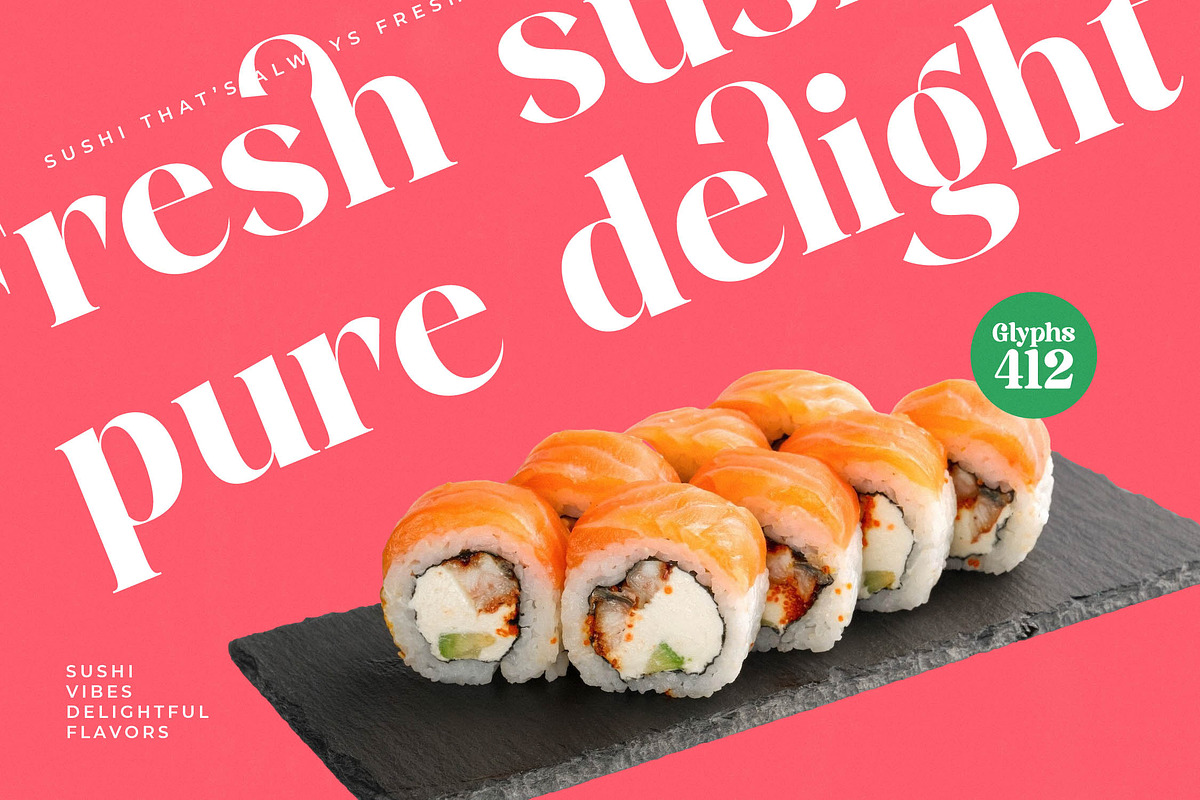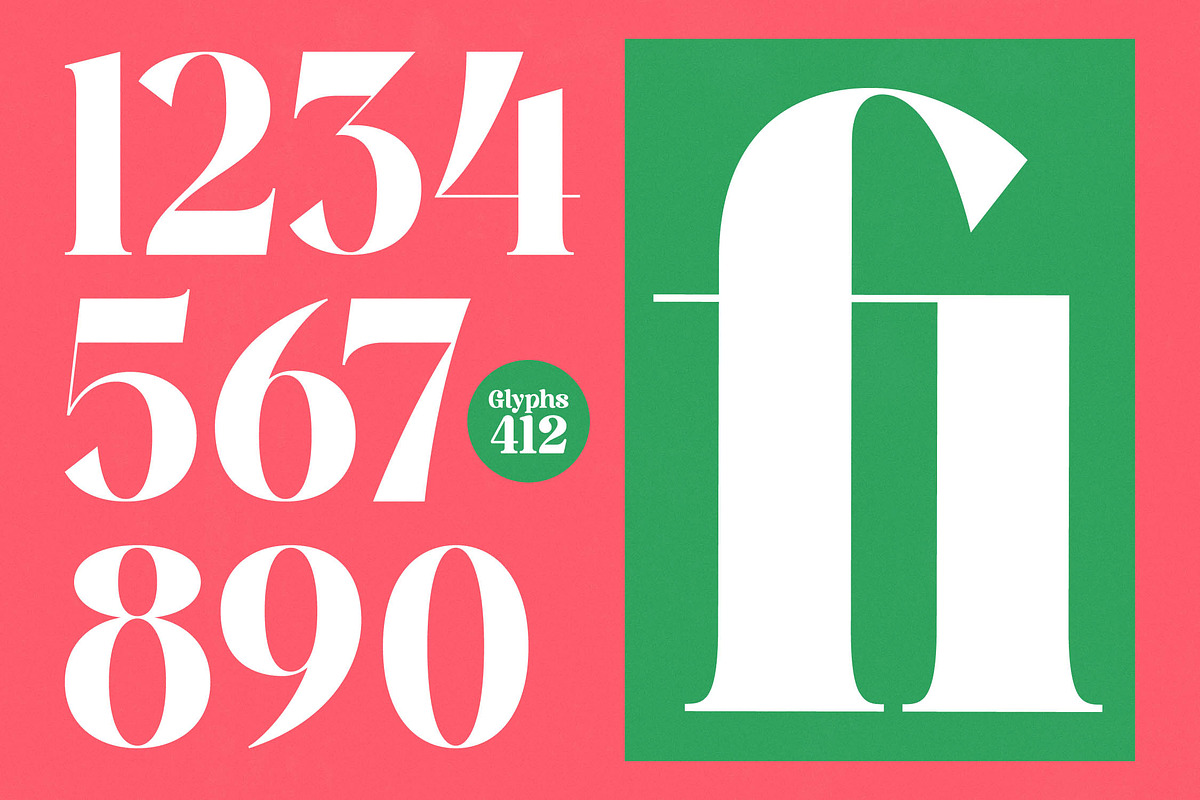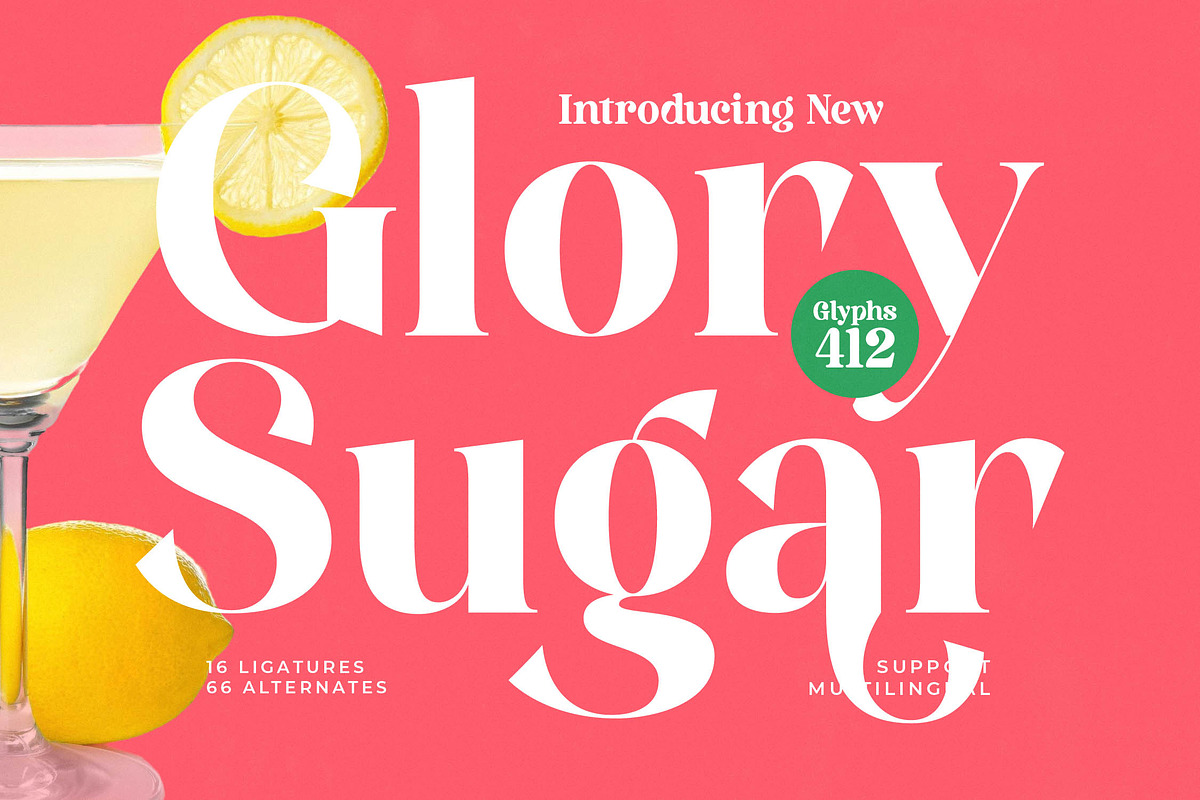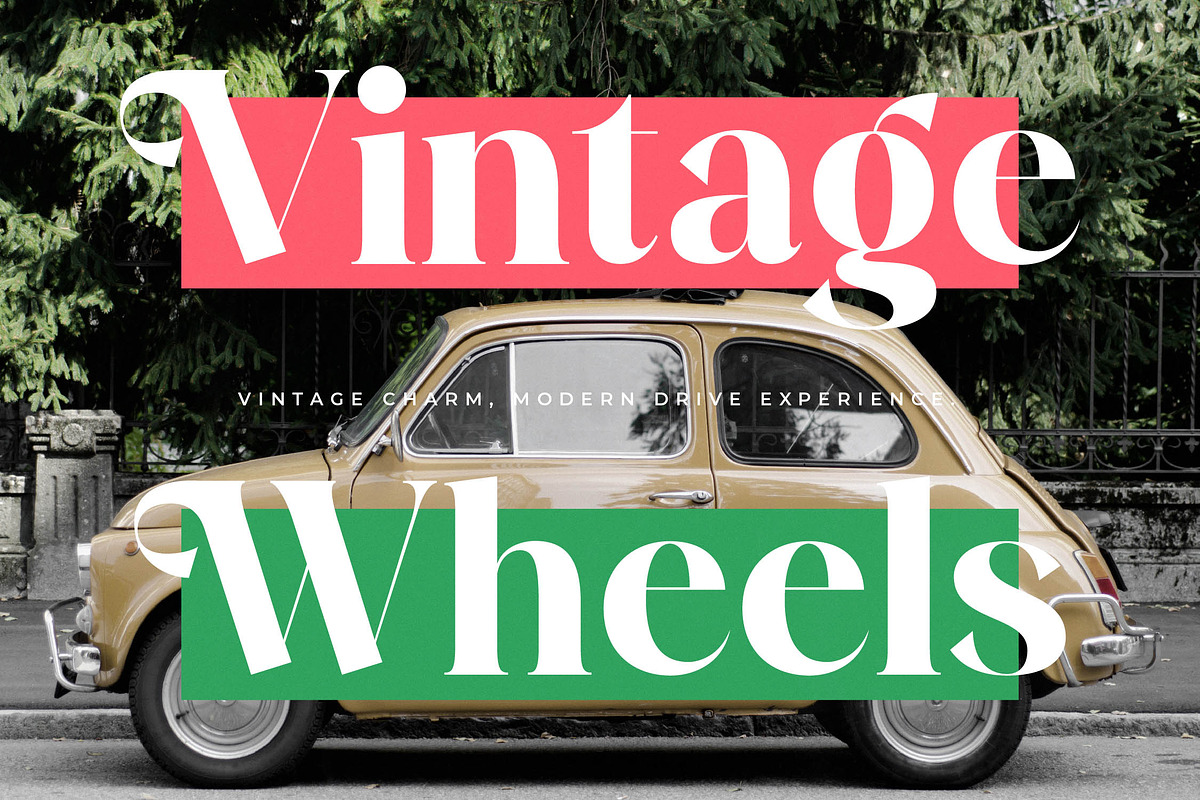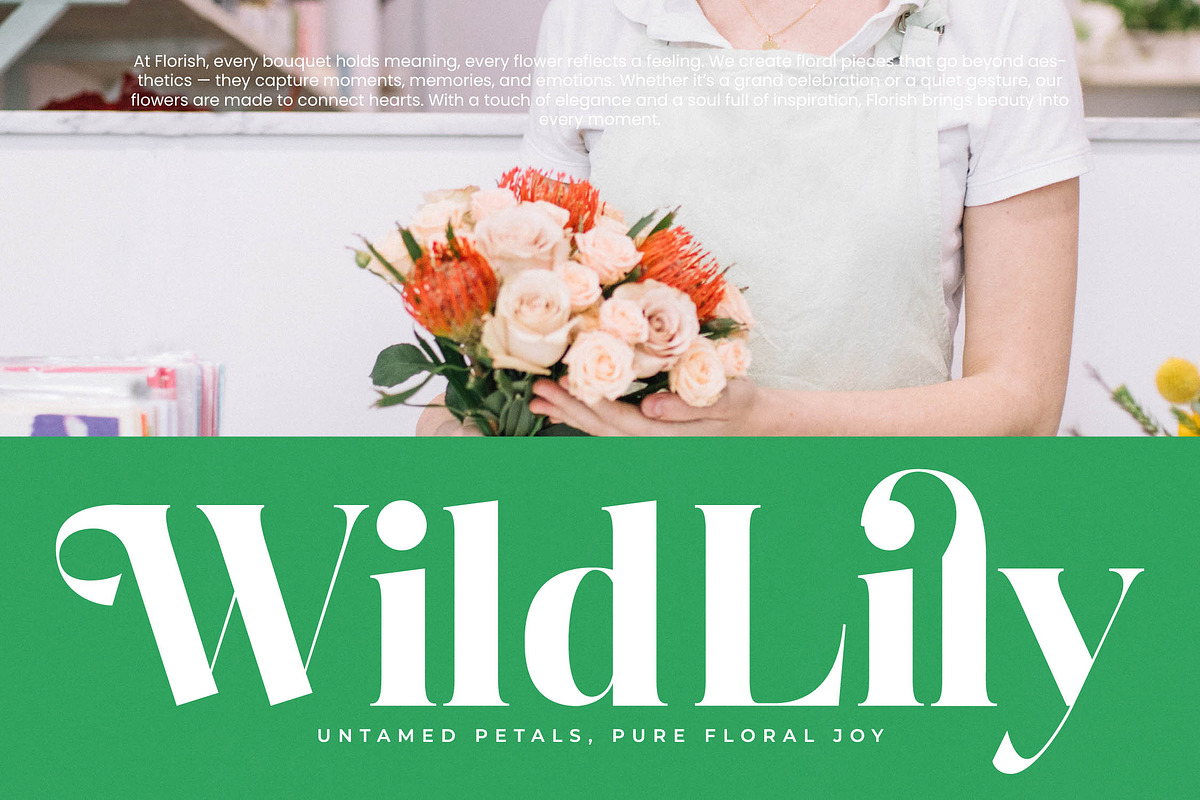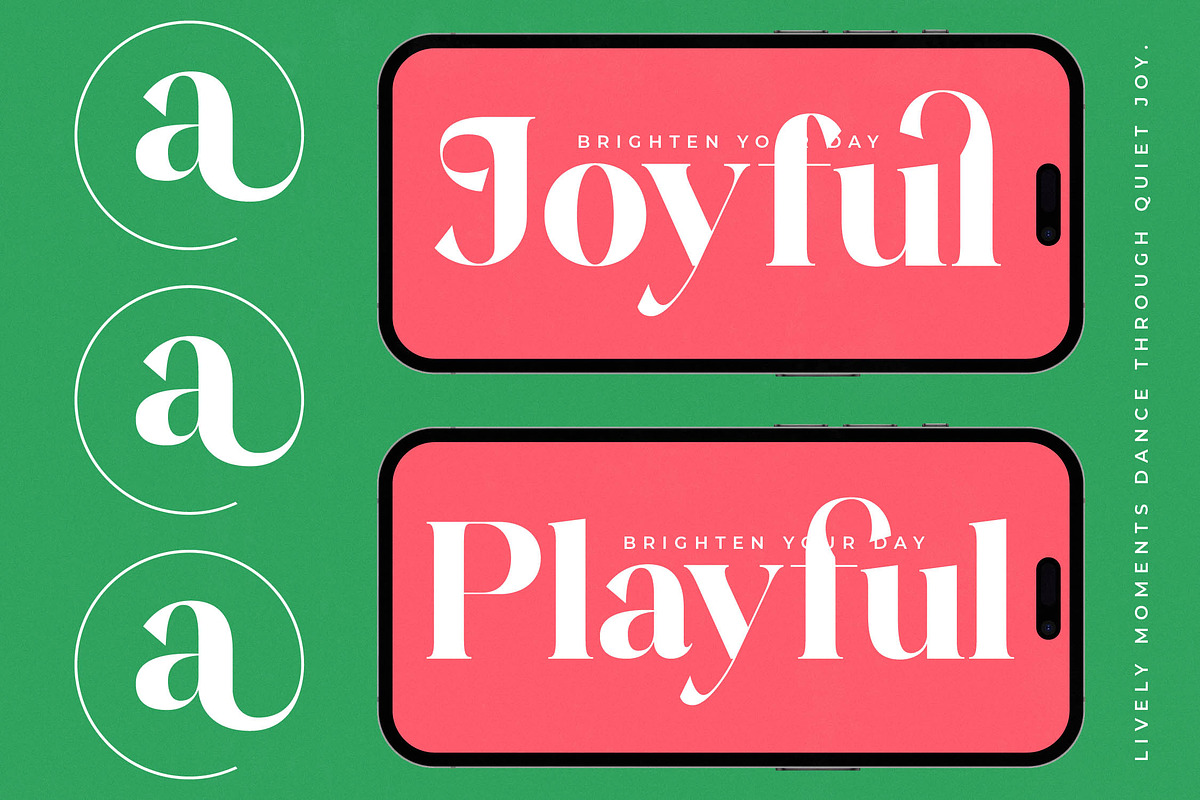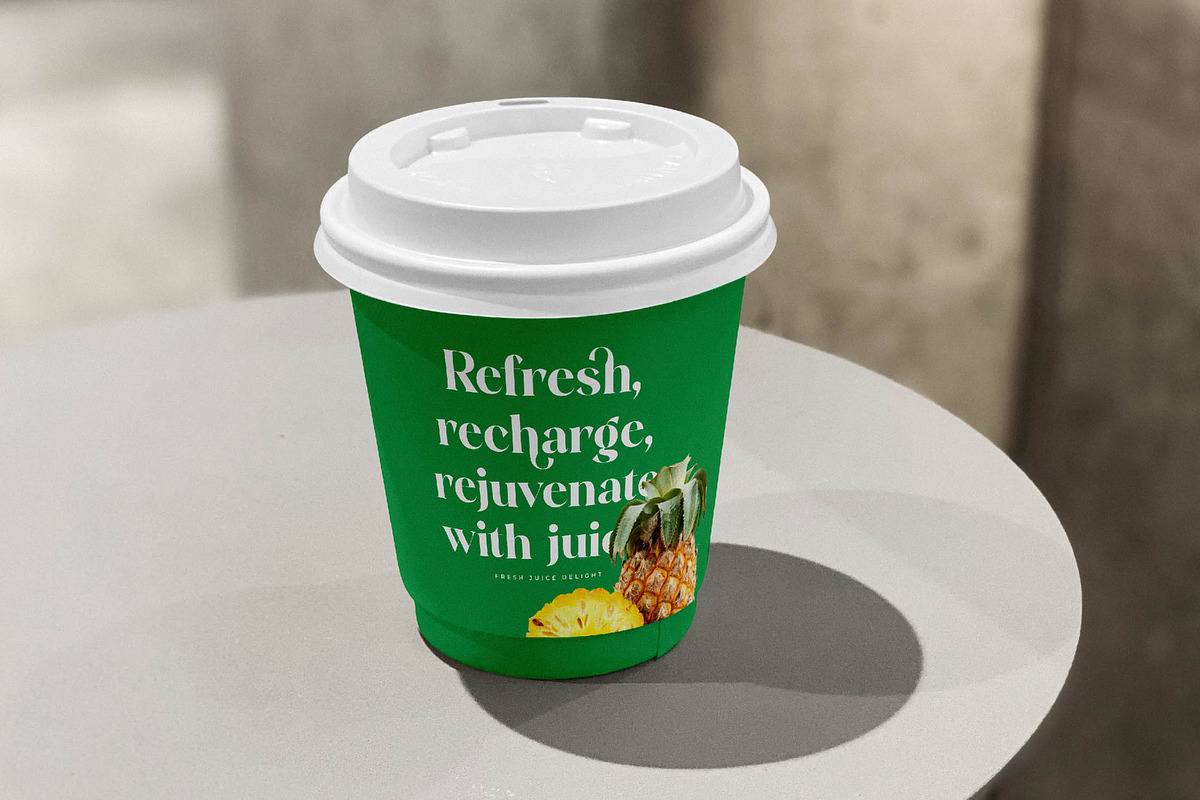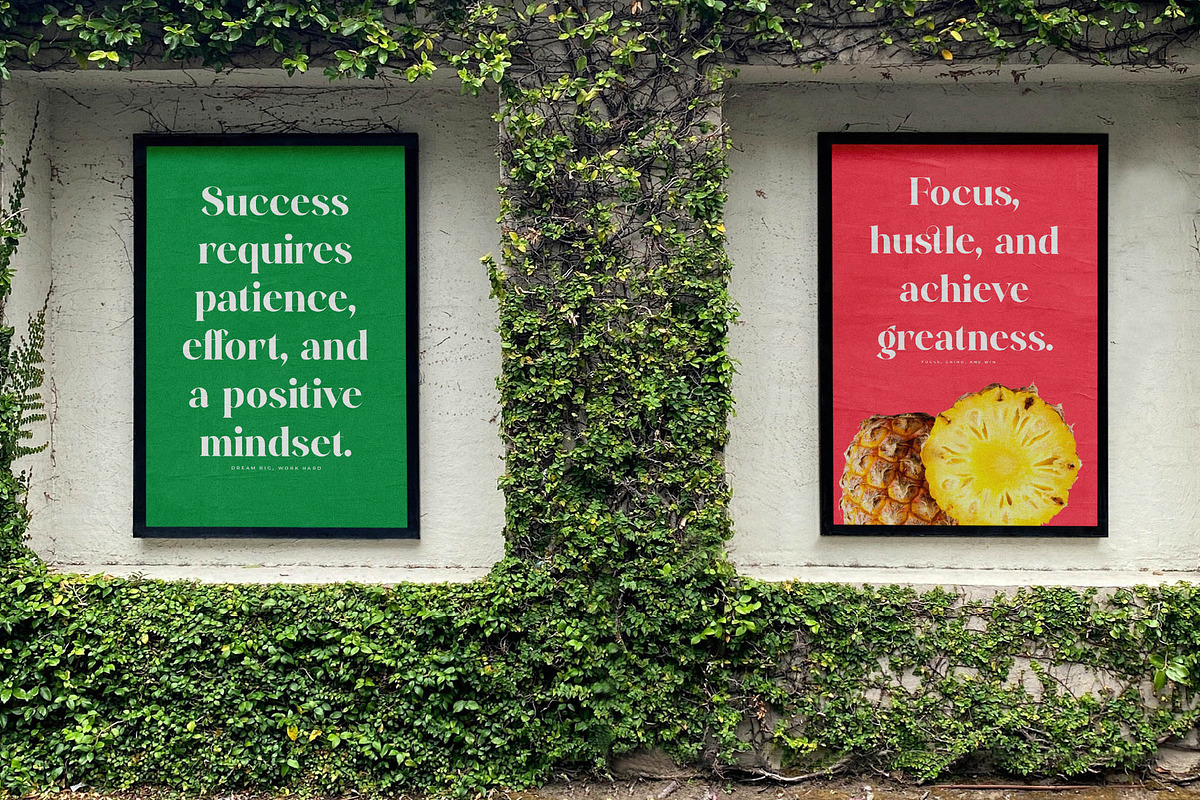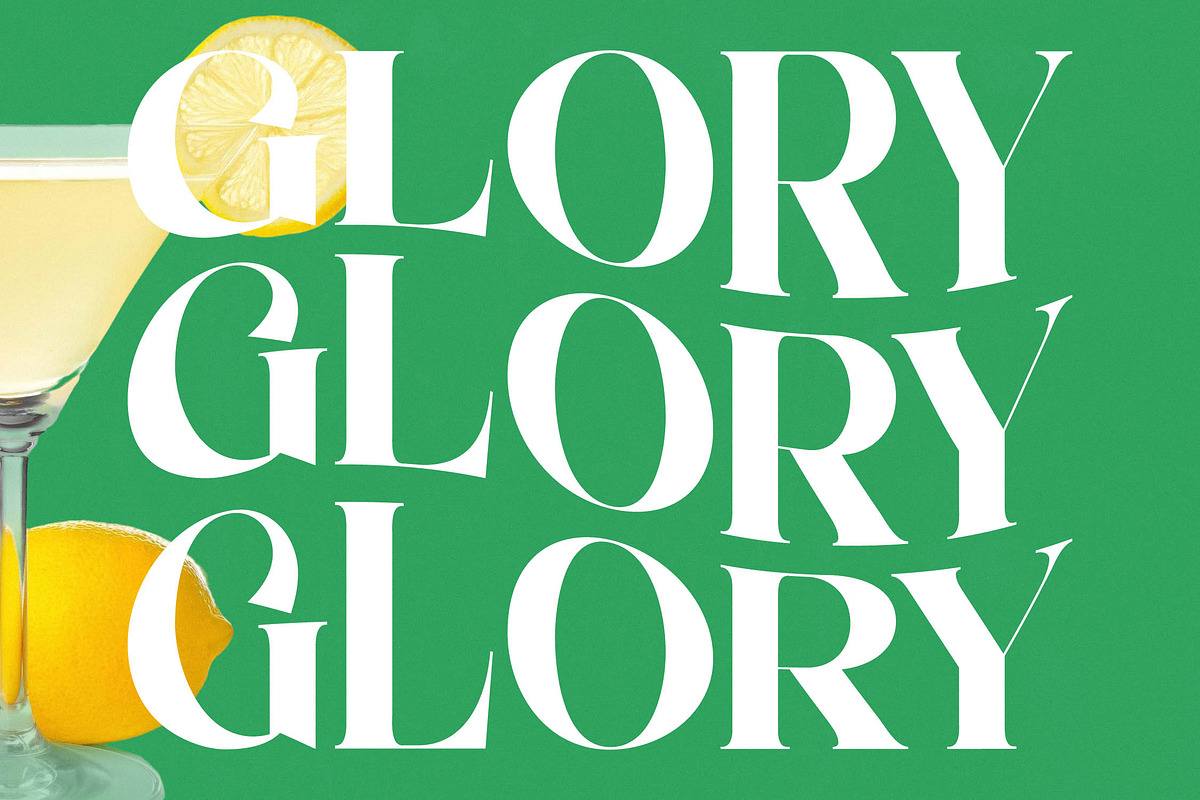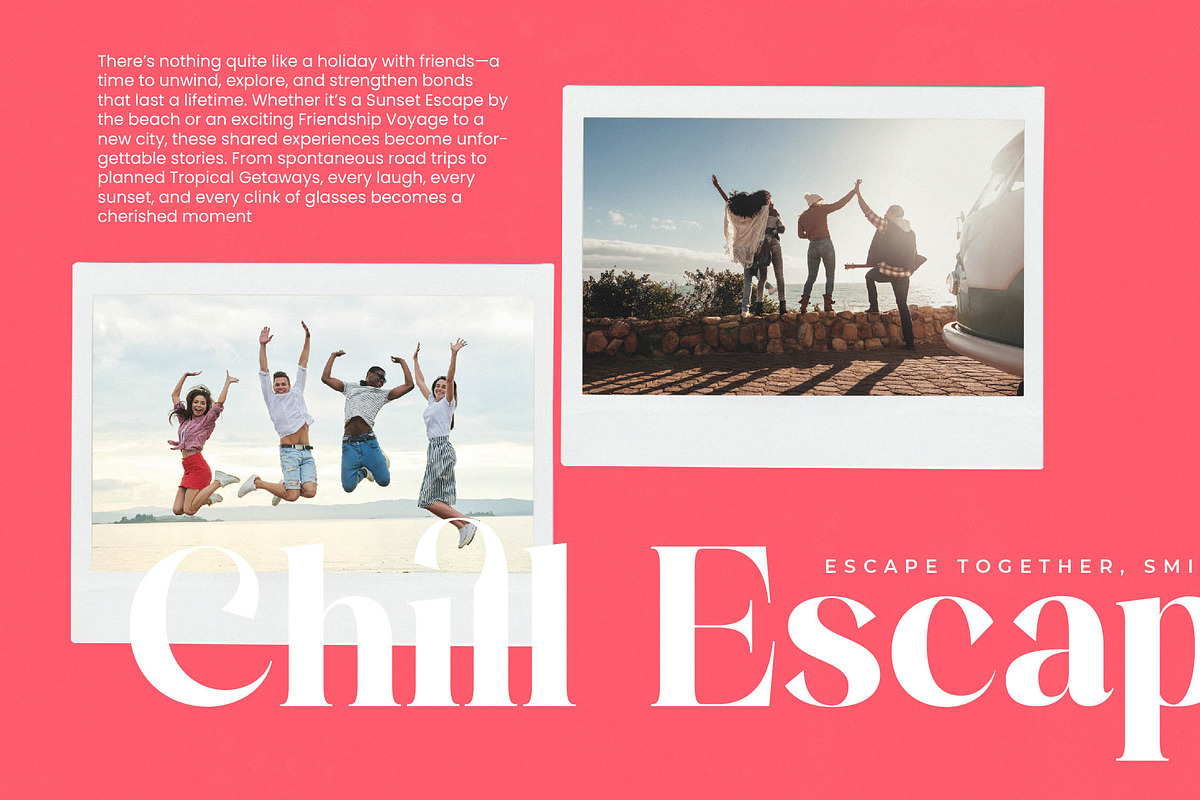
Glory Sugar Modern Serif Display
Glory Sugar is a breathtaking fusion of high-fashion elegance and playful energy, designed to elevate your creative projects to new heights. This font commands attention with its graceful curves and razor-sharp serifs, making every headline a statement of pure luxury.
Inspired by the crisp aesthetics of editorial layouts and the vibrant spirit of summer aesthetics, the typeface reflects a harmonious balance between tradition and contemporary flair. Its visual rhythm evokes a sense of sun-drenched sophistication and effortless style.
Crafted with a focus on modern serif display excellence, Glory Sugar provides the luxury typography needed for a lasting branding impact. The high-contrast serif strokes and refined terminals create an editorial font experience that is both timeless and strikingly current.
Aligning perfectly with the current modern serif trend, this typeface is an essential addition for those seeking editorial display fonts with soul. It celebrates character-driven typography by offering unique shapes that break away from the mundane to define a brand's unique voice.
Whether you are working on a high-end logo design or a complete branding suite, this font excels in premium environments. It is the perfect choice for editorial spreads, bold packaging, romantic wedding invitations, and sophisticated fashion marketing materials.
Boasting over 400 glyphs, the set includes beautiful ligatures and creative alternates to customize your text. With full multilingual support and a wide range of international characters, plus elegant swashes, it ensures your design speaks clearly across borders.
- Ligature 016 Alternate 066